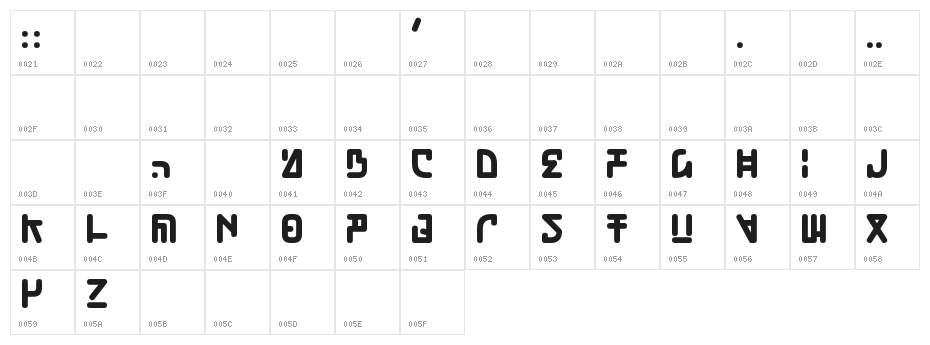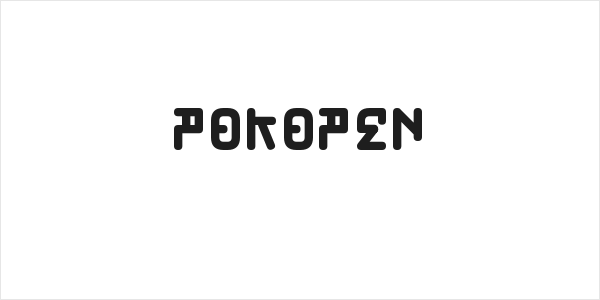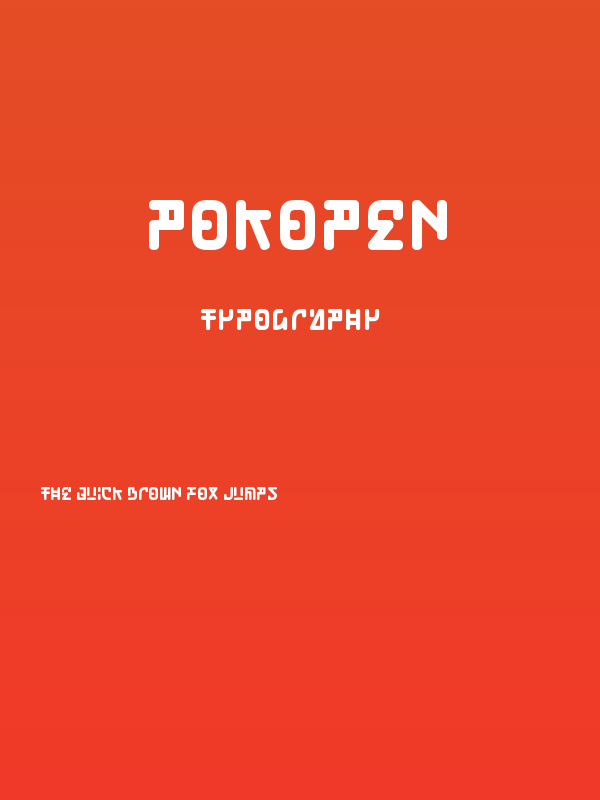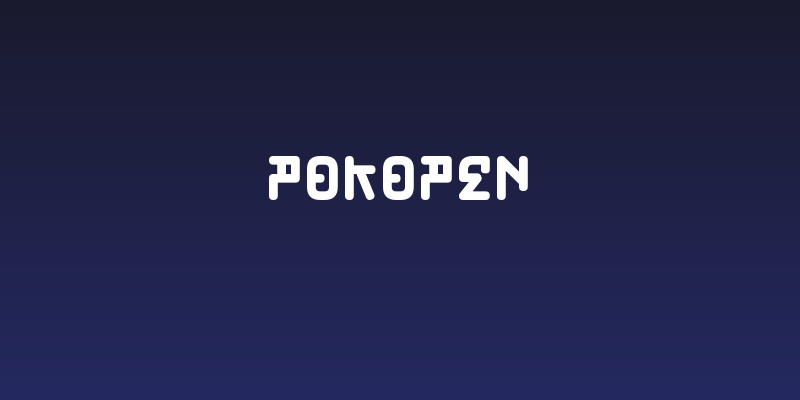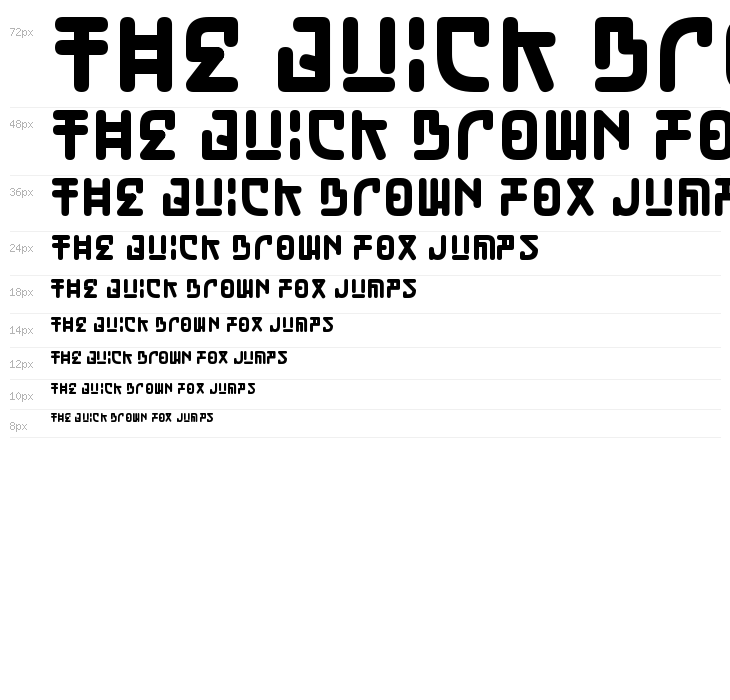
Pokopen Font
Pokopen Description
This font features a bold, geometric style with rounded edges and a futuristic aesthetic. Each character is designed with a consistent thickness, creating a uniform appearance across the alphabet. The uppercase letters are particularly striking, with unique shapes that give the font a distinctive look. The lowercase letters maintain the same boldness and geometric design, ensuring readability while adding a playful touch. The numerals and special characters are crafted to match the overall style, making them ideal for modern and creative projects. The font's design is both eye-catching and versatile, suitable for a variety of uses.